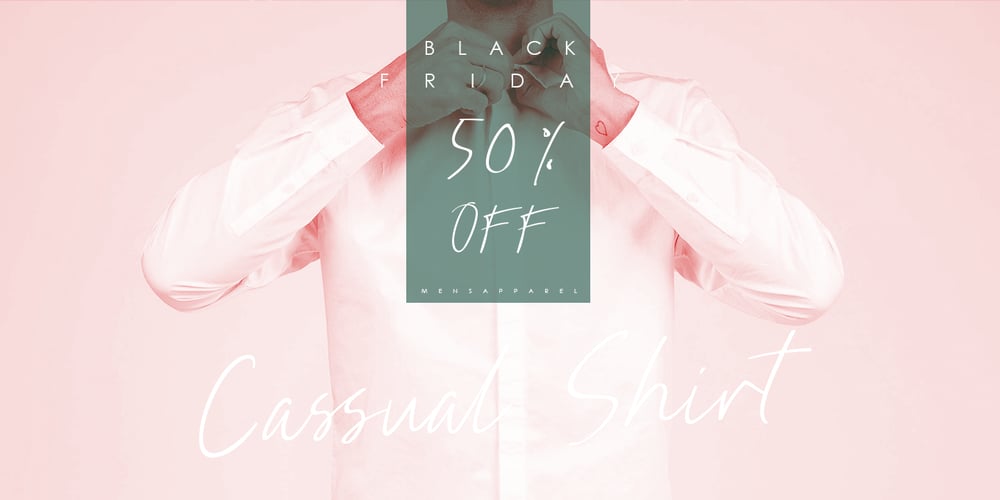
Nathallie Font Family was designed by Rudi Suhairi and published by Tegaki. Nathallie contains 1 styles and family package options. Hi all, Nathallie created with stylist and handwritten characters. This handwritten font was PUA encoded. Nathallie is a natural handwritten style that comes with Extended Latin Characters. Nathallie works perfectly for logos, display, product branding, wedding invitation card, stationary, packaging, clothing, flyer, apparel, magazines, brochures, lable, posters, badges, etc. Nathallie comes with 415 glyphs and 26 alternate characters contain with opentype features (supported with contextual alternates mode). Nathallie also comes with 164 extended ligatures that allowing you to make stuff looks more exclusive and pro standard. You can access all those alternate characters by using OpenType savvy programs such as Adobe Illustrator, Adobe InDesign and CorelDraw X6-X7, Microsoft Word 2010 or later versions. There are additional ways to access alternates/swashes, using Character Map (Windows), Nexus Font (Windows), Font Book (Mac) or a software program such as PopChar (for Windows and Mac). For other programs that doesn’t support OpenType features or Glyphs Panel such as Photoshop, you can use Character Map in Windows to access the alternate characters. Files included: Nathallie (otf) How to access all alternative characters, using Windows Character Map with Photoshop: http://youtu.be/cxonI5QvULk How to access all alternative characters using Adobe Illustrator: https://www.youtube.com/watch?v=y5XTaWYwWA4 If you need help or advice, please contact me by email “tegakiscript@gmail.com” Thank you for your purchase!